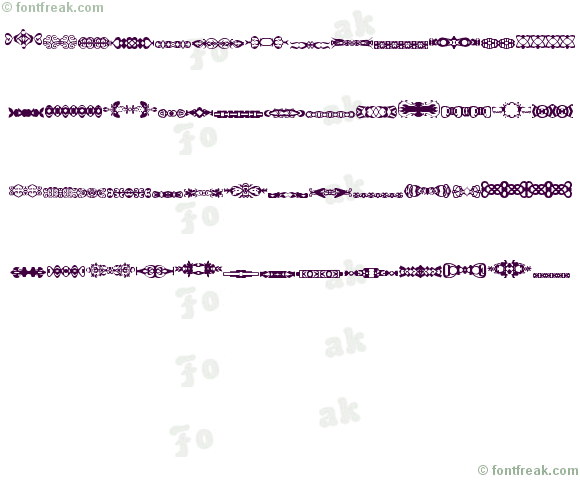
Sl Trim 1
About Sl Trim 1
The Sl Trim 1 font, designed by Sharon Loya, is a unique decorative typeface that stands out with its playful, artistic flair. As a display font, it features an intricate design that is both whimsical and eye-catching, making it ideal for projects that require a touch of creativity. The font exhibits a light stroke weight and a moderate contrast, which adds to its charm while ensuring legibility. The spacing between characters is thoughtfully designed, allowing for a smooth flow that enhances readability even in more compact layouts.
Sl Trim 1 is particularly well-suited for a variety of creative applications, including wedding invitations, where its decorative nature can evoke a sense of elegance and festivity. It also shines in branding materials, helping small business owners create a memorable identity. Additionally, this font can be effectively used in children's book illustrations, where its playful character can capture the imagination of young readers. Movie posters can benefit from the unique style of Sl Trim 1, drawing attention and adding a distinctive element that sets the tone for the film. Lastly, it is an excellent choice for social media graphics, allowing content creators to stand out in a crowded digital space.